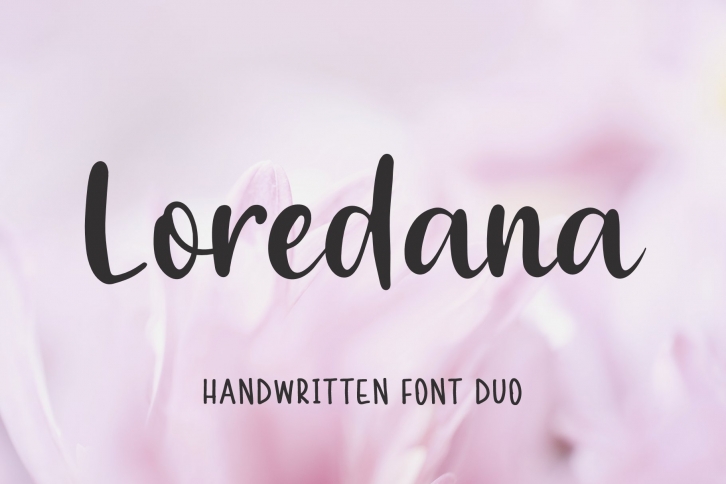
Loredana - a new hand drawn font duo.
This font is ideal for branding and decorate your any project, are perfect for wedding invitation or your blog. Also with their help, you can create a logo or beautiful frame for your home. Or just use for your small business, book covers, stationery, marketing, magazines and more. In this font all characters are PUA encoded.
Following international symbols support: ÀÁÂÃÄÅĄÇĆÈÉÊËĘÌÍÎÏÐÑŃŁÒÓÔÕÖØÙÚÛÜŚŠŸÝŹŻŽßàáâãäåçèéêëìíîïðñòóôõöøùúûüýÿąćęłńśšźżž